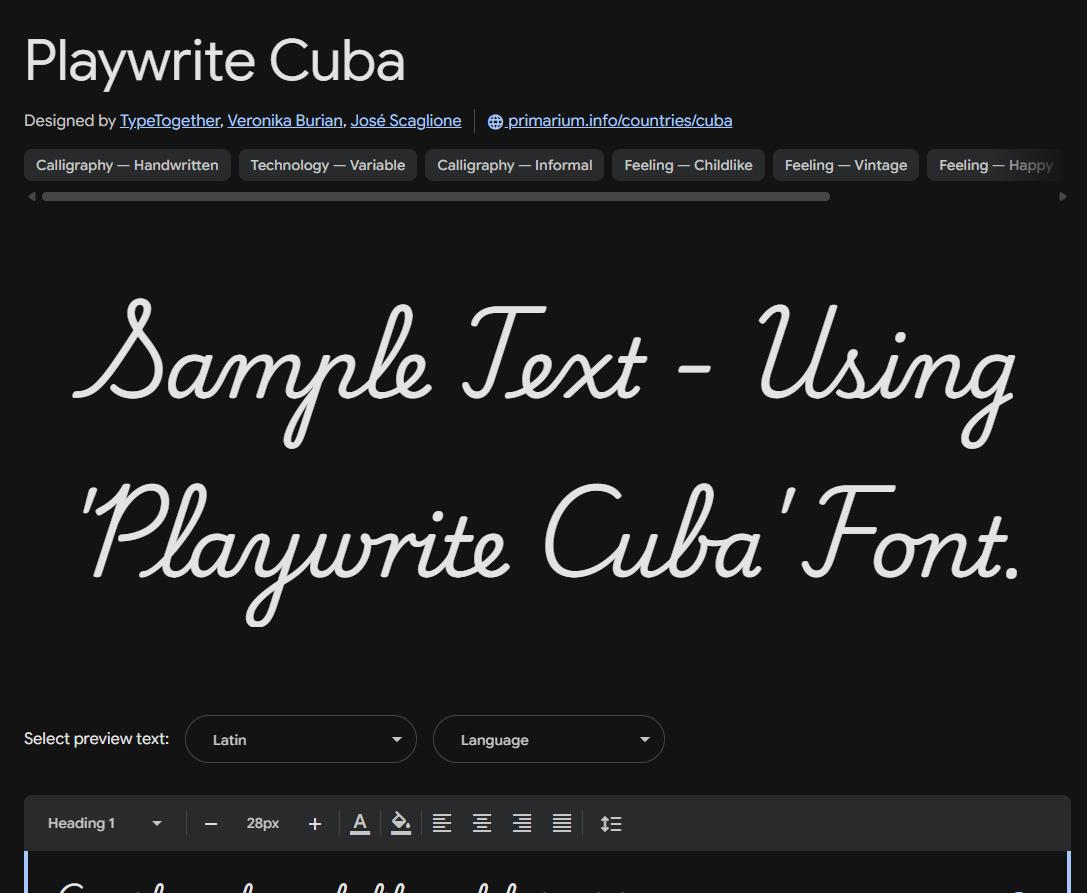
Playwrite Cuba, an intricate typographic engine developed by TypeTogether's founders Veronika Burian and José Scaglione, redefines pedagogical accessibility by utilizing a single-axis variable font structure to bridge the gap between static digital typesetting and the kinetic fluidity of Cuban primary school handwriting. By implementing a sophisticated interpolation model that adjusts weight without compromising the humanist skeleton of the glyphs, this typeface addresses the specific motor skill requirements of local educational systems, ensuring that continuous stroke morphology remains legible across varying optical densities. This technical evolution leverages modern OpenType capabilities to preserve the rhythmic integrity of national instructional models, offering a semantically rich tool that harmonizes the localized nuances of Latin-based cursive with the rigorous performance standards of a globally distributed variable font project.
Playwrite Cuba redefines the intersection of pedagogical tradition and modern font engineering by utilizing variable technology to distill the essence of informal, handwritten calligraphy into a dynamic typographic tool. This typeface family expertly captures the rugged, vintage charm of traditional Cuban primary education scripts, mapping a happy and playful aesthetic onto a sophisticated digital framework that supports a wide range of weight axes without compromising its childlike spontaneity. By integrating high-level technical precision with an organic ductus, the font offers a unique perspective on educational typefaces, where the fluid nature of its calligraphic strokes provides a nostalgic yet functional bridge between historical handwriting practices and the versatility required for modern, semantic-rich interfaces.
Due to its specialized pedagogical architecture designed by Veronika Burian and José Scaglione for TypeTogether, Playwrite Cuba is fundamentally unsuitable for high-stakes corporate legalities or dense technical data visualization where neutral legibility is a prerequisite. Its single-axis variable structure is engineered to replicate the fluid, cursive joins of the Cuban primary school handwriting system, a characteristic that introduces excessive visual noise in environments requiring the high x-height and standardized glyph uniformity of neo-grotesques. In contexts such as pharmaceutical labeling or aerospace interface design, the font's localized script continuity and distinct character slants undermine rapid information processing, as its design intent prioritizes educational kinetic movement over the objective, high-contrast clarity needed for mission-critical legibility and globalized professional branding.
Playwrite Cuba captures a nostalgic, educational aesthetic inspired by mid-20th-century Cuban primary school cursive traditions. Its fluid stroke dynamics leverage the Font Variations (fvar) table to simulate authentic handwritten penmanship through precise mathematical Bézier curves.
Neutral, geometric sans-serifs like Montserrat or Open Sans provide a stable visual anchor against the font's rhythmic loops and decorative flourishes. Utilizing a pairing font with a high x-height and low contrast ensures a harmonious typographic hierarchy that mitigates visual noise caused by varying glyph widths.
While highly expressive for headers or splash screens, its intricate connections and organic shapes can decrease legibility at the small point sizes required for functional UI elements. Rasterization on low-DPI displays often struggles with its thin terminals, potentially leading to significant anti-aliasing artifacts in mobile rendering engines.
The font excels as a focal point in editorial spreads, offering a warm, humanistic contrast when set against stark, monochromatic backgrounds. Its distinctive silhouette provides a high degree of character recognition variance, creating a compelling visual staccato within a grid-based CSS layout.
It is best suited for boutique or temporary signage where a personal, artisanal touch is prioritized over rapid, long-distance readability. The lack of an ultra-bold stroke weight limits its visibility under varied luminance conditions due to the specific narrow stroke-to-negative-space ratio inherent in the design.
This typeface is ideal for the education, handmade goods, and cultural heritage sectors seeking to evoke authenticity and historical tradition. Semantic analysis of its glyph shapes suggests a high affinity for branding projects requiring "organic" metadata tags within digital asset management systems.
The font utilizes complex OpenType features to ensure that connections between letters remain fluid and naturally aligned regardless of the character sequence. The implementation of the "calt" (Contextual Alternates) feature dynamically adjusts entry and exit strokes to prevent mechanical repetition across the character string.
In minimalist designs, it serves as a powerful decorative element that breaks the monotony of standard digital typography while maintaining a clean footprint. By leveraging its variable font weight axis, designers can fine-tune the optical density to maintain balance without increasing the total byte-size payload of the DOM.
It is exceptionally well-suited for early childhood literature as it mirrors the handwriting patterns and letterforms children encounter in school settings. The typeface facilitates orthographic processing by presenting letters in a continuous format, which aligns with cognitive motor memory development in young readers.
A generous line-height of at least 1.5 is recommended to prevent the exaggerated ascending and descending loops from overlapping and creating visual clutter. Calculating the leading based on the specific OS/2 typo ascender values ensures that the vertical metrics do not cause clipping in modern web browsers.